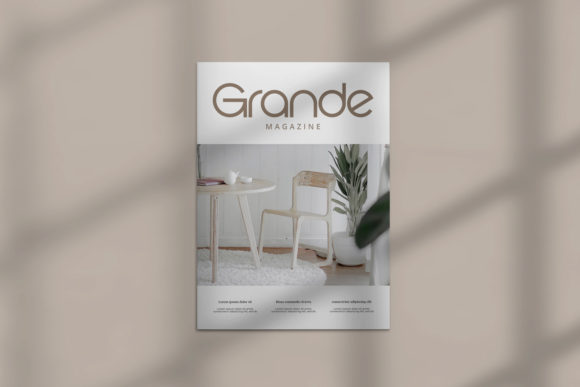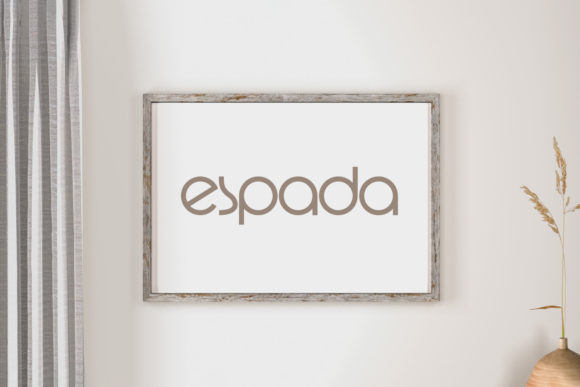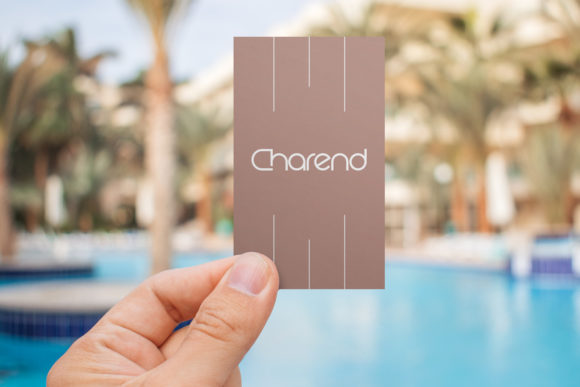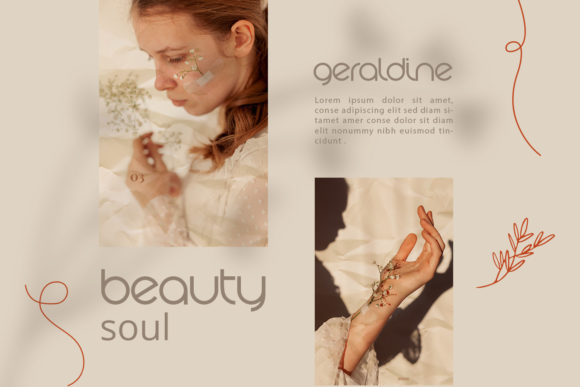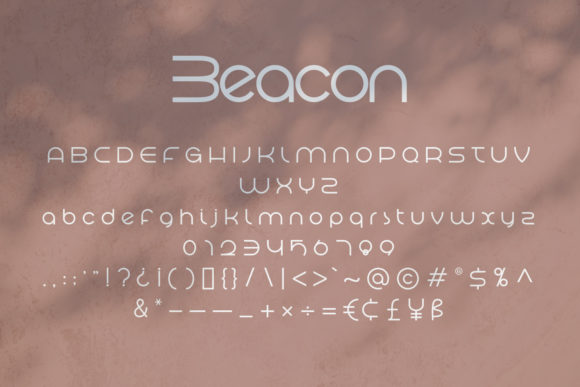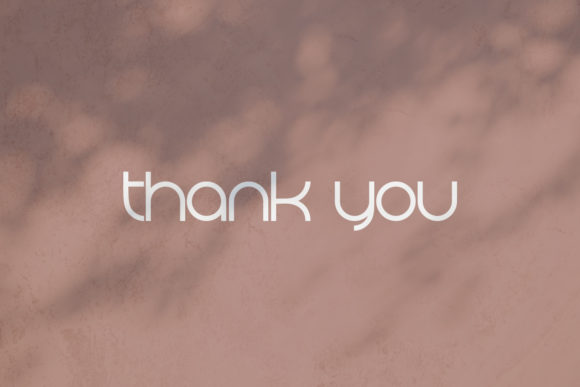
Introducing Beacon Font: The Ultimate Minimal and Techno Display Font
Are you tired of using the same old fonts for your design projects? Look no further than Beacon Font, a minimal and techno display font that’s sure to take your creations to the next level. With its sleek and modern design, Beacon Font is the perfect addition to any project, from branding and advertising to packaging and web design.
What is Beacon Font?
Beacon Font is a display font that’s designed to make a statement. Its minimal and techno aesthetic makes it perfect for projects that require a bold and futuristic look. The font is characterized by its clean lines, simple shapes, and futuristic feel, making it ideal for designers who want to create a sense of innovation and forward-thinking.
Key Features of Beacon Font
- Minimal Design: Beacon Font features a minimal design that’s perfect for creating a sense of simplicity and elegance.
- Techno Aesthetic: The font’s techno aesthetic makes it perfect for projects that require a bold and futuristic look.
- High Versatility: Beacon Font can be used for a wide range of projects, from branding and advertising to packaging and web design.
- Easily Readable: Despite its minimalist design, Beacon Font is easily readable, even at small sizes.
Why Choose Beacon Font?
So why choose Beacon Font for your next project? Here are just a few reasons:
- Stand Out from the Crowd: With Beacon Font, you can create designs that stand out from the crowd and grab attention.
- Perfect for Modern Brands: The font’s modern and techno aesthetic makes it perfect for brands that want to convey a sense of innovation and forward-thinking.
- High-Quality Design: The font is designed to high-quality standards, ensuring that your designs look professional and polished.
How to Use Beacon Font
Using Beacon Font is easy. Here are a few tips to get you started:
- Pair it with Other Fonts: Beacon Font can be paired with other fonts to create a unique and interesting design.
- Use it for Headings: The font is perfect for headings and titles, where its bold and futuristic aesthetic can really shine.
- Experiment with Colors: Beacon Font looks great in a variety of colors, so don’t be afraid to experiment and find the perfect color scheme for your design.